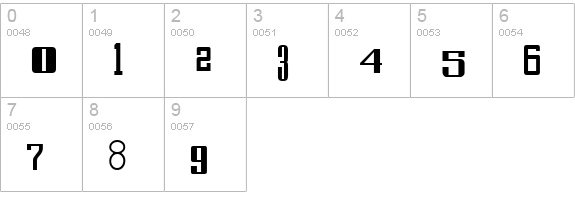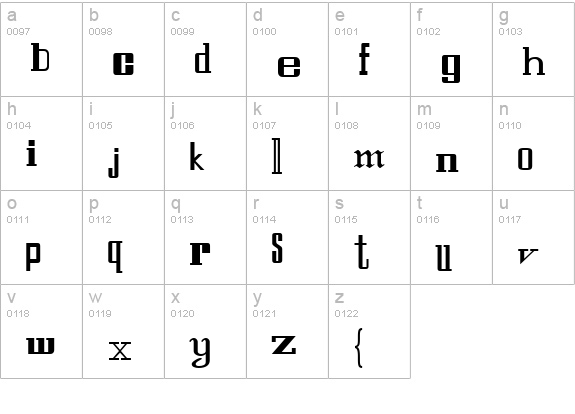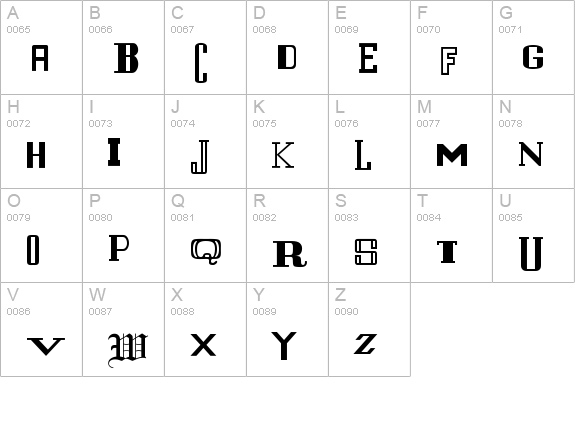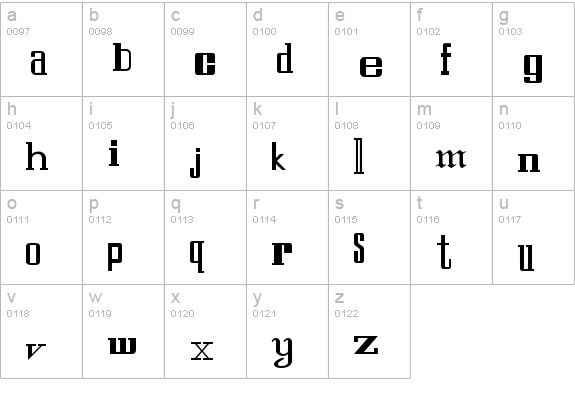
SaintFrancis is a visually striking font that captures the essence of elegance and sophistication. This font effortlessly combines classic and modern design elements, resulting in a unique and captivating typeface. With its clean lines and graceful curves, SaintFrancis is a versatile font that can be used for a variety of creative projects. One of the most appealing aspects of SaintFrancis is that it is available for free. This means that anyone can enjoy the beauty and versatility of this font without having to spend a dime. Whether you are a professional designer or an amateur enthusiast, SaintFrancis offers a high-quality and visually appealing option for your typography needs. To access this amazing font, simply visit FontsMarket.com and download it free of charge. FontsMarket.com is a reputable website that offers a wide selection of fonts, and SaintFrancis is just one of the many incredible options available. With its easy-to-use interface and seamless downloading process, FontsMarket.com ensures that you can quickly and effortlessly add SaintFrancis to your font collection. Once you have SaintFrancis in your repertoire, the possibilities are endless. From designing eye-catching logos to creating stunning invitations, this font will elevate your projects to new heights. Its versatility allows it to be used in various contexts, whether it be for print or digital media. In conclusion, SaintFrancis is a must-have font that combines elegance, sophistication, and versatility. And the best part? It's completely free! Download SaintFrancis today at FontsMarket.com and unlock a world of creative possibilities.